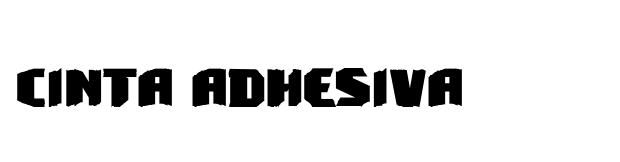
Cinta Adhesiva
Cinta Adhesiva began as a typeface designed for the masthead of a graffiti fanzine called Free Copy. The monumental letters painted by L.A.-based graffiti writers Crae and Hael greatly influenced the feel of the typeface. The availability and...